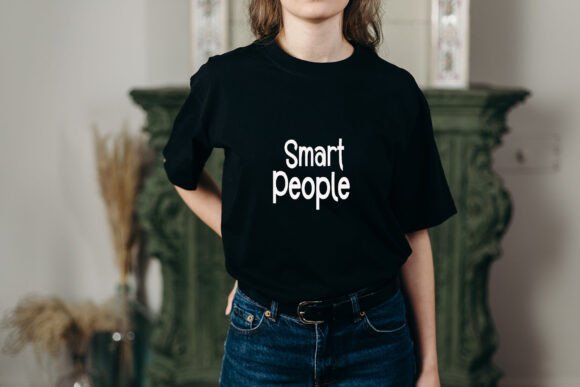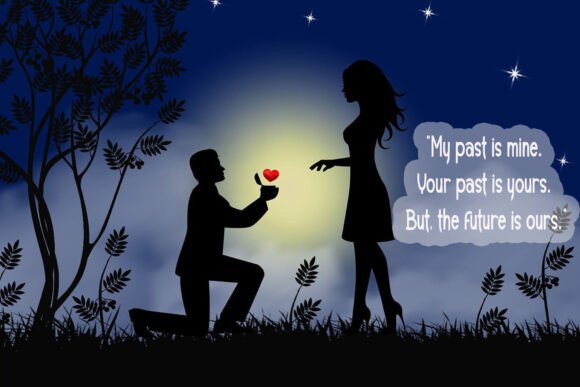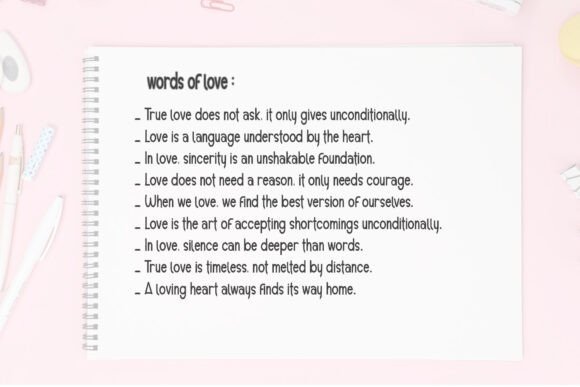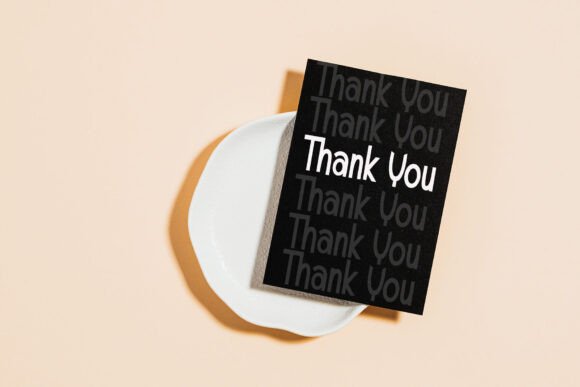
The Quest for the Perfect Font: Discovering Better Alphabet
I’ll never forget the time I was working on a project for a high-end client, tasked with creating a sophisticated brand identity that exuded elegance and refinement. As I scrolled through font after font, I just couldn’t seem to find the right fit. That was until I stumbled upon Better Alphabet, a trendy handwritten font that instantly caught my eye. In this article, I’ll share my experience with Better Alphabet, its features, and how to make the most of it in your design projects.
An Honest Review of Better Alphabet
So, what makes Better Alphabet so special? Let’s dive into the good stuff! 😊
- ✨ Elegant and Refined: Better Alphabet boasts a contemporary atmosphere with impeccable form, inspired by timeless classic calligraphy.
- ✅ Versatile: This font can be used for a wide range of design projects, from luxury branding to wedding invitations and more.
- 💫 Unique Character: Better Alphabet has a distinct personality that sets it apart from other fonts, making it perfect for designers looking to add a touch of sophistication to their work.
Of course, no font is perfect, and Better Alphabet has a few minor quirks to be aware of:
- 🤔 Limited Use in Body Text: While Better Alphabet is stunning as a headline or title font, it may not be the best choice for body text due to its elegant, yet somewhat ornate, nature.
- ⚠️ Glyph Limitations: Some users have reported that the font may not have an extensive range of glyphs or special characters, which could limit its use in certain projects.
A Practical Guide to Using Better Alphabet
The Story Behind Better Alphabet
Rumor has it that Better Alphabet was created by a talented type designer who drew inspiration from classic calligraphy and modern handwriting. With a passion for elegant, refined typography, the designer aimed to create a font that would add a touch of sophistication to any design project. And, judging by the font’s popularity, it’s safe to say they succeeded! 😊
| Font Name | Better Alphabet Font |
| Author | asmunin78 |
| What makes Better Alphabet unique? | Better Alphabet’s unique blend of classic calligraphy and modern handwriting makes it stand out from other fonts. |
| Is Better Alphabet suitable for body text? | While Better Alphabet is stunning as a headline or title font, it may not be the best choice for body text due to its elegant, yet somewhat ornate, nature. |